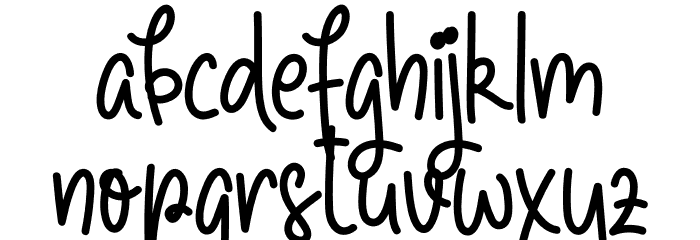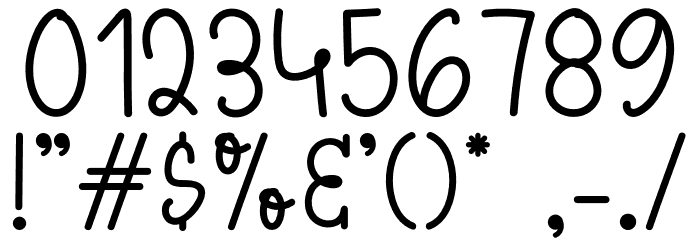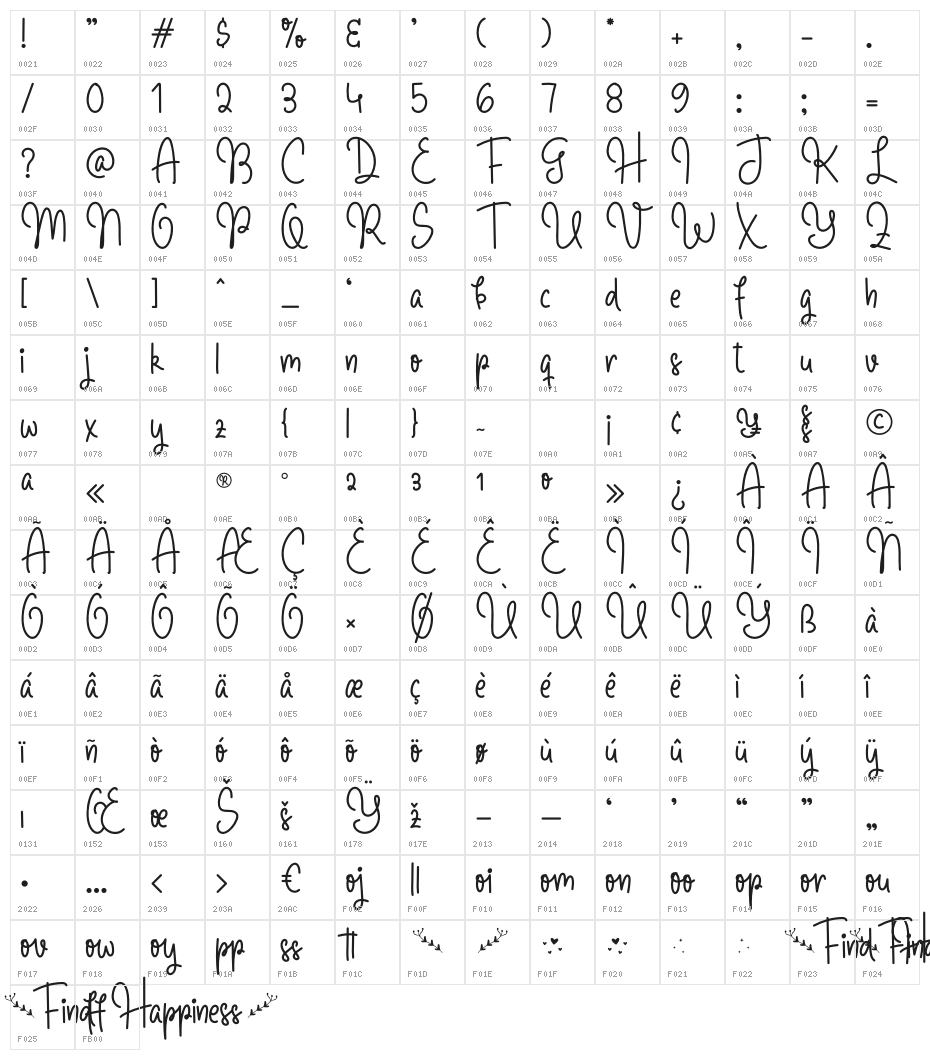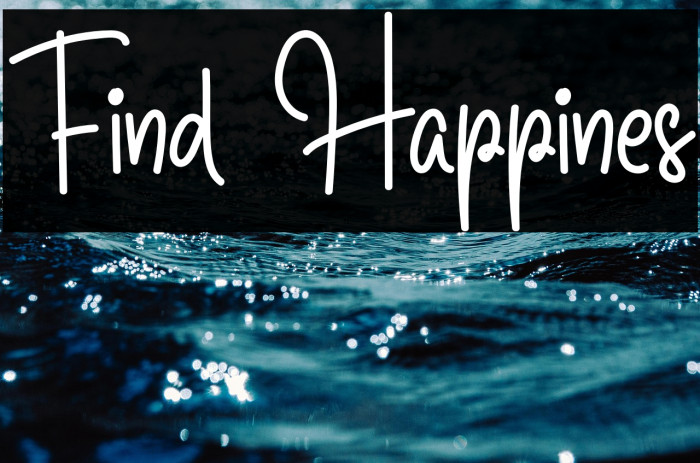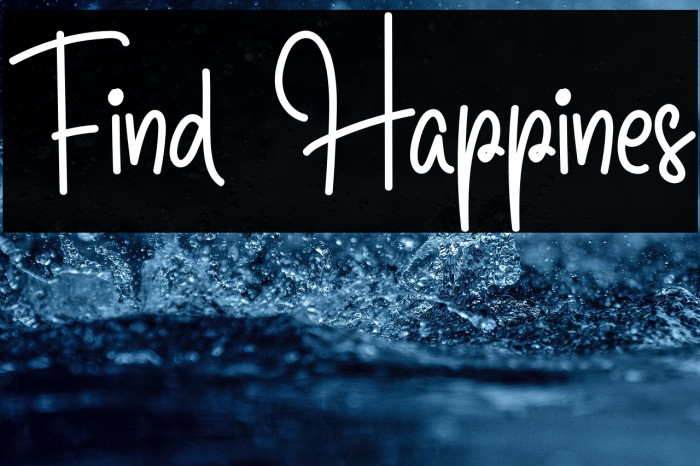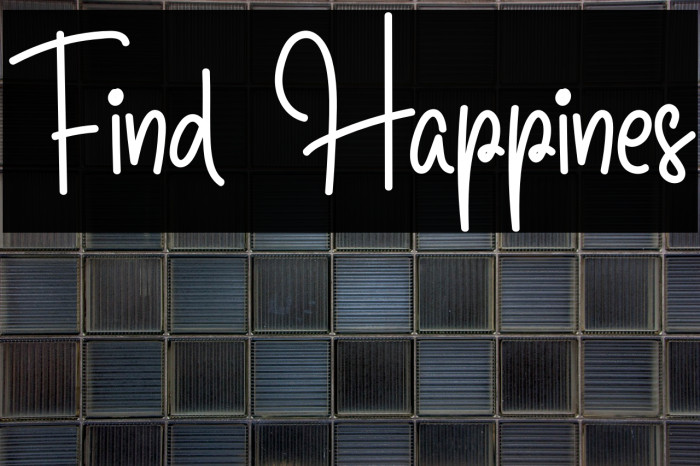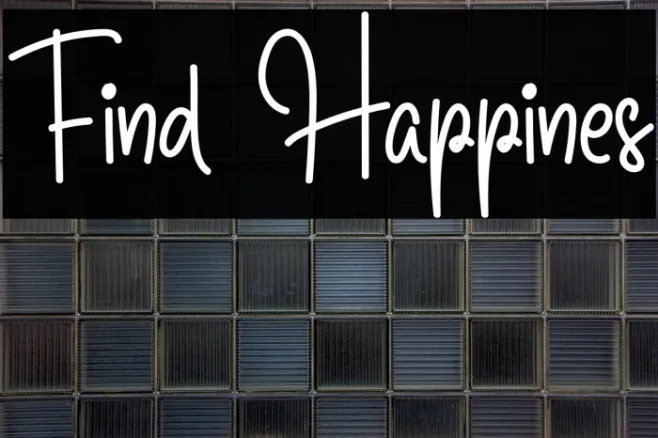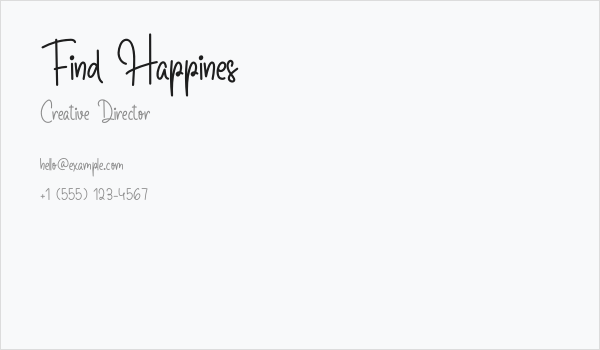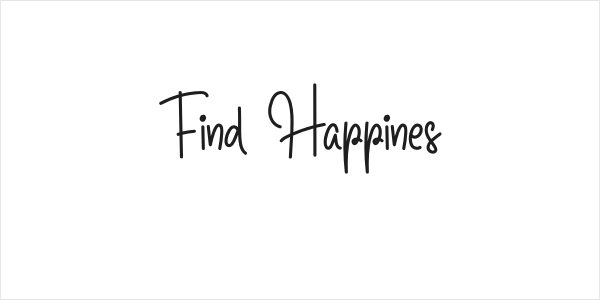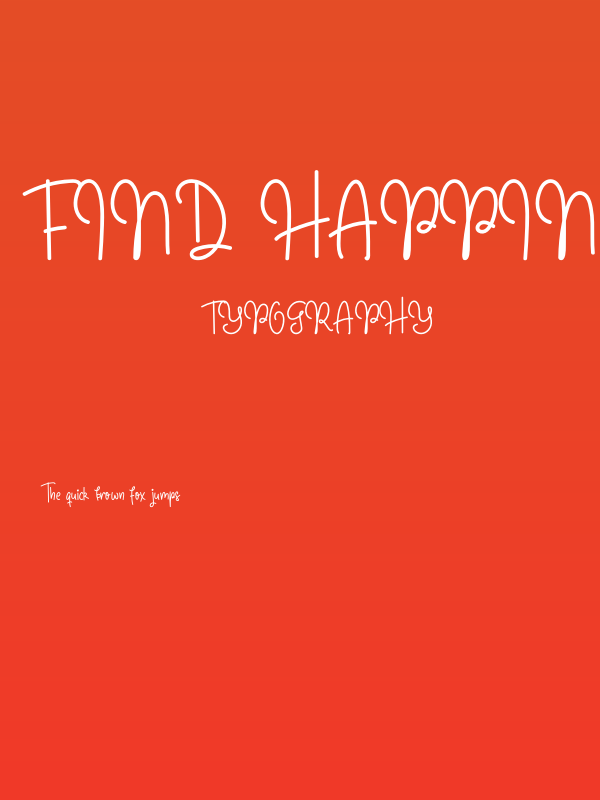
Find Happines Font
This playful and whimsical font features a handwritten style with a casual and friendly appearance. The letters are characterized by their rounded edges and slightly irregular shapes, giving them a lively and informal feel. The uppercase letters maintain a consistent height, while the lowercase letters vary slightly in size, adding to the font's charm. The numbers and special characters follow the same playful style, making them suitable for creative and fun projects. The overall design is approachable and versatile, perfect for adding a personal touch to any text.
A playful, handwritten font with rounded edges and a casual style.
- Font: Find Happines
- Proposed Projects: Ideal for greeting cards, children's books, playful branding, and social media graphics.
- Category: Handwritten
- Overall Style: Playful
- Use Case: Headlines, Logos, Informal Text